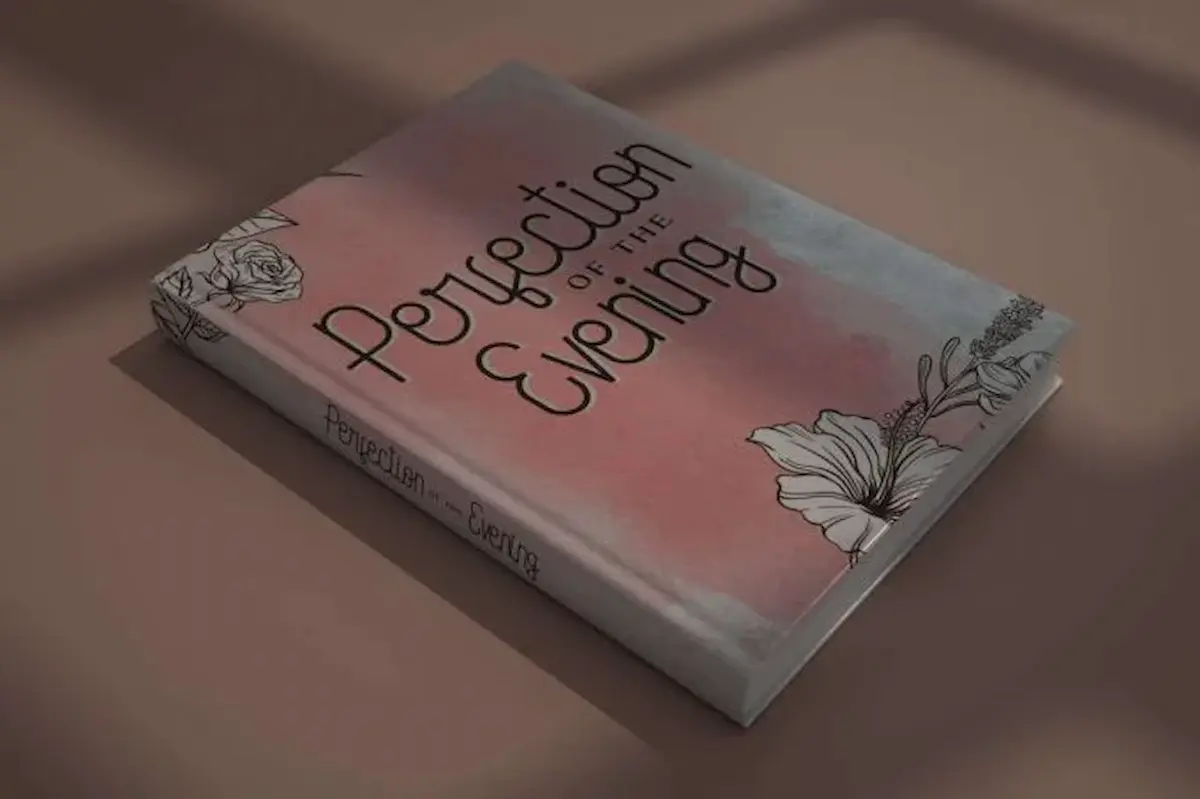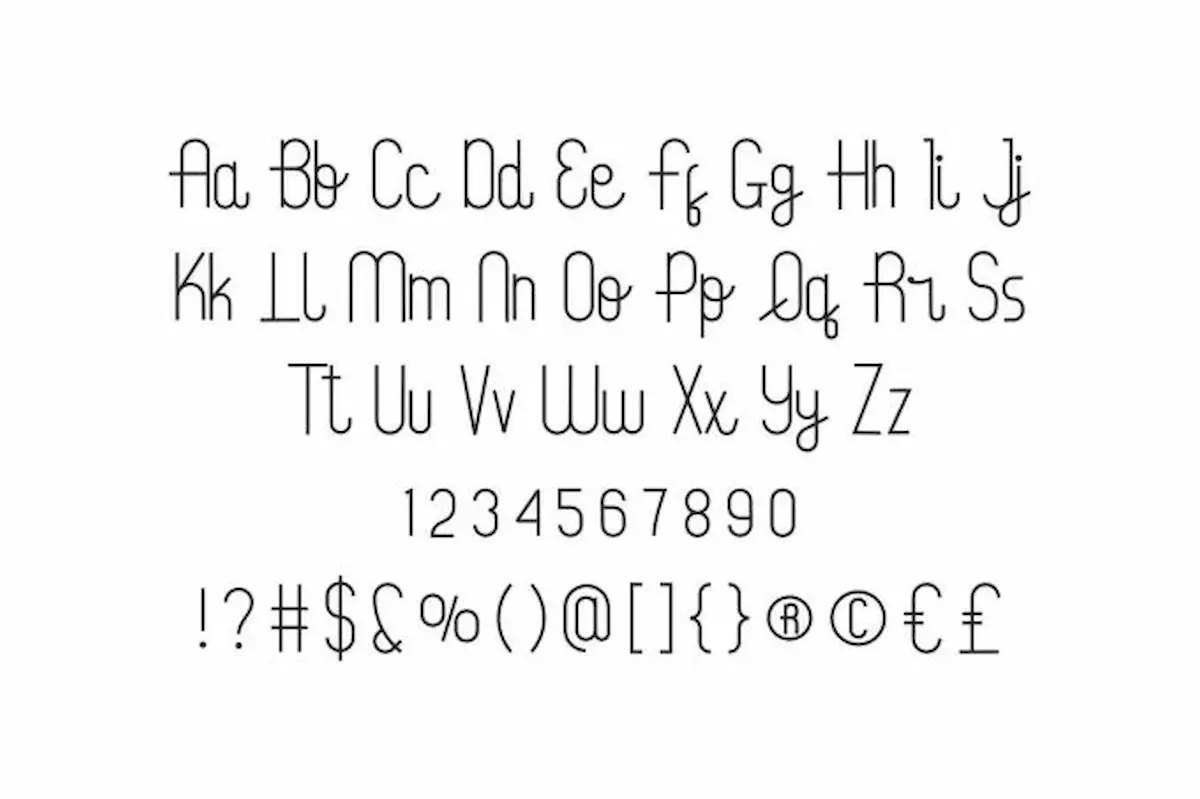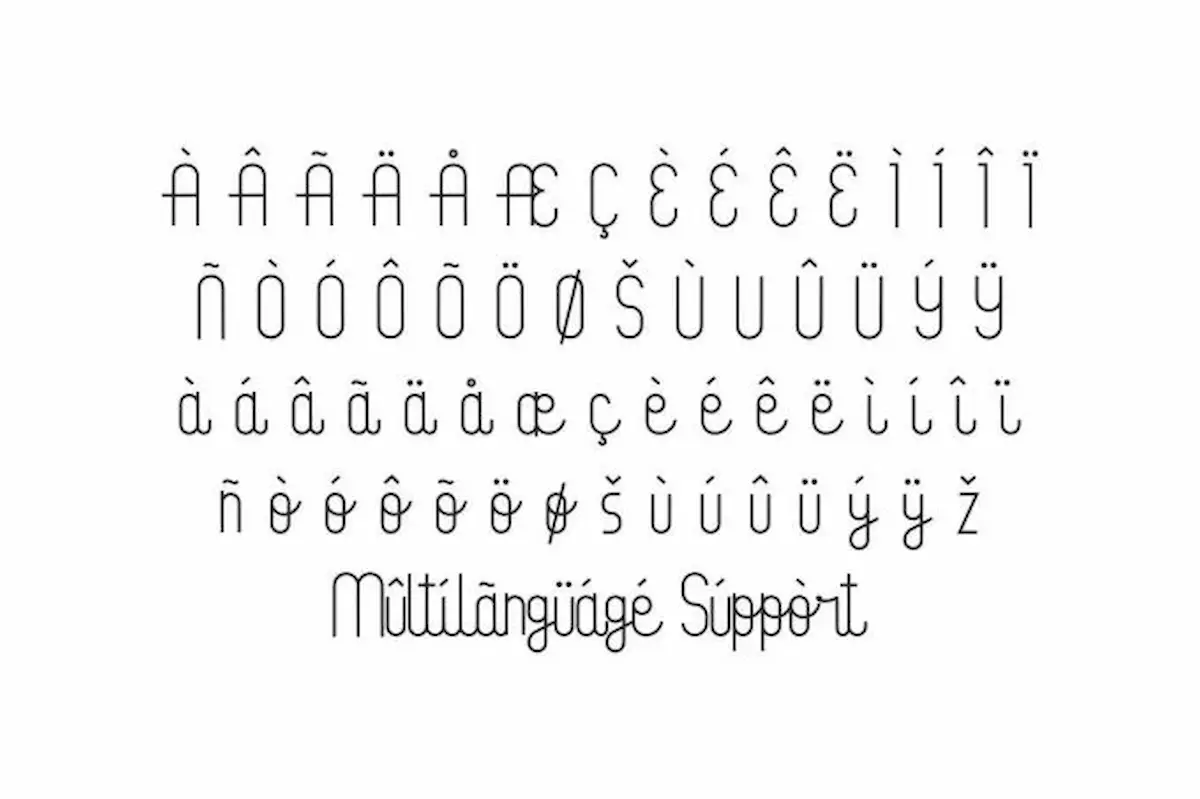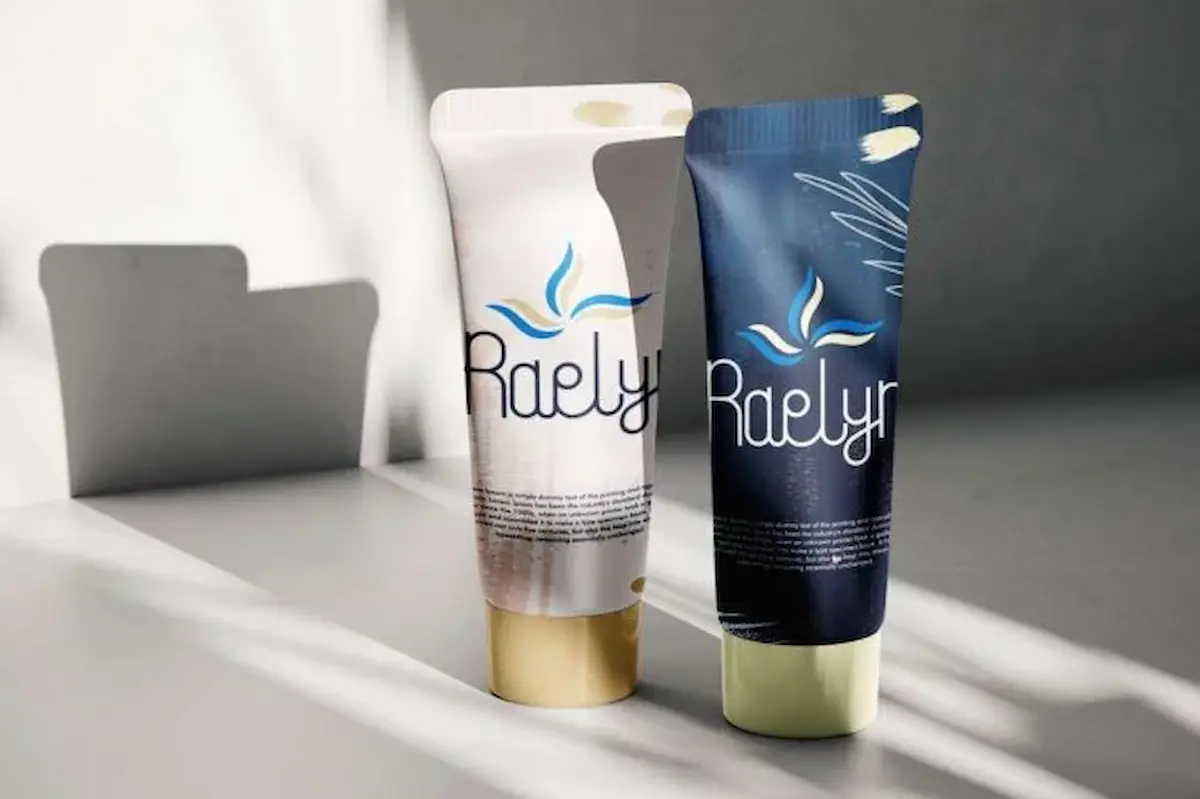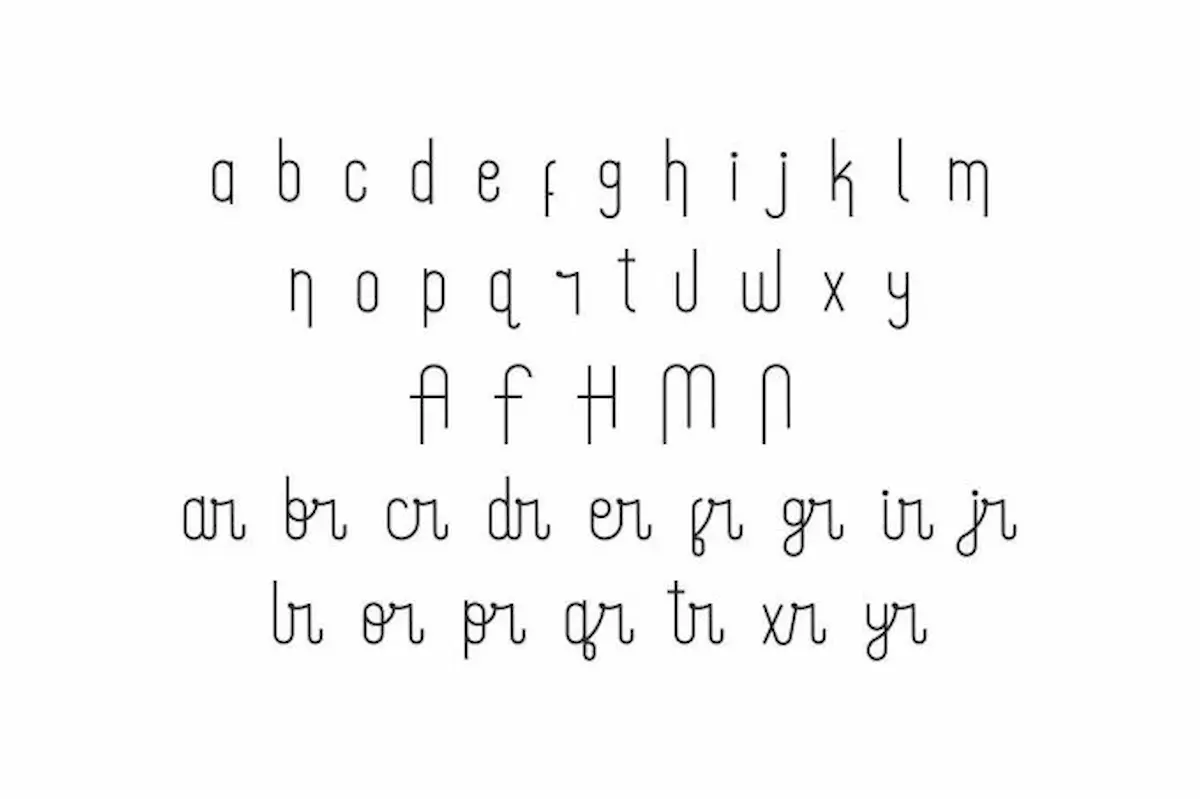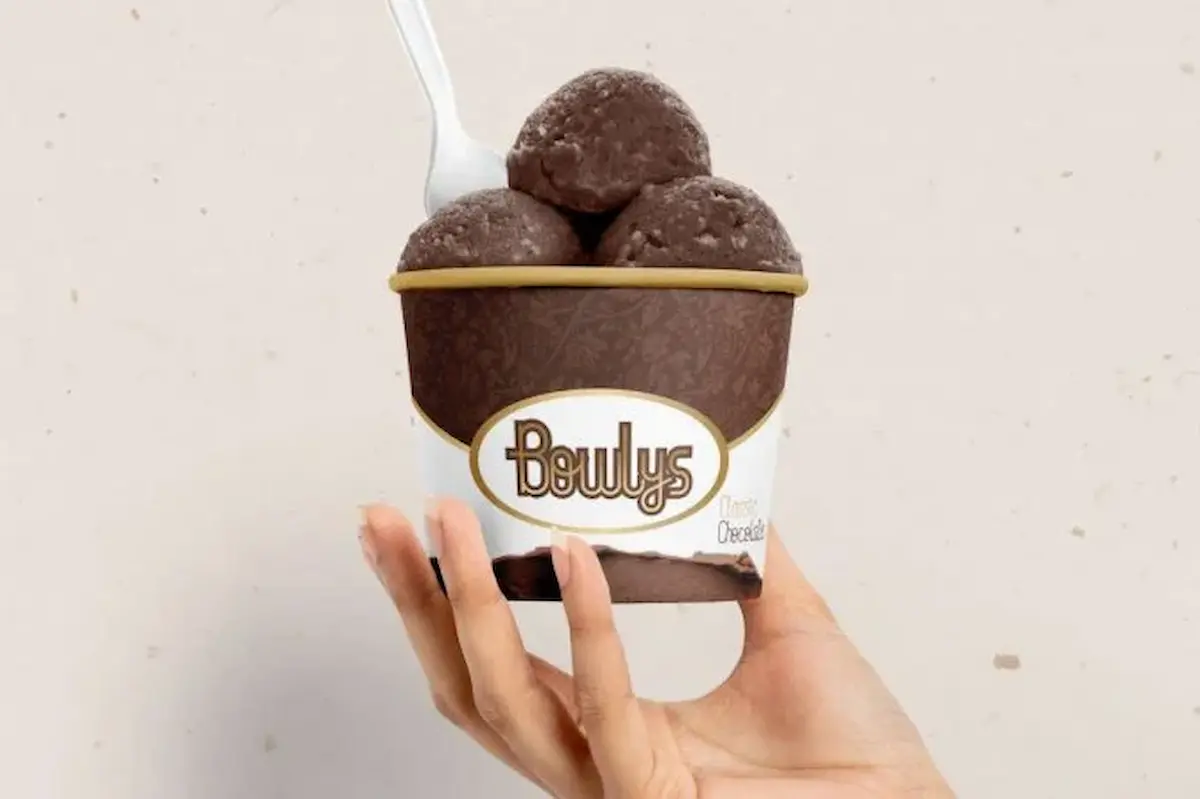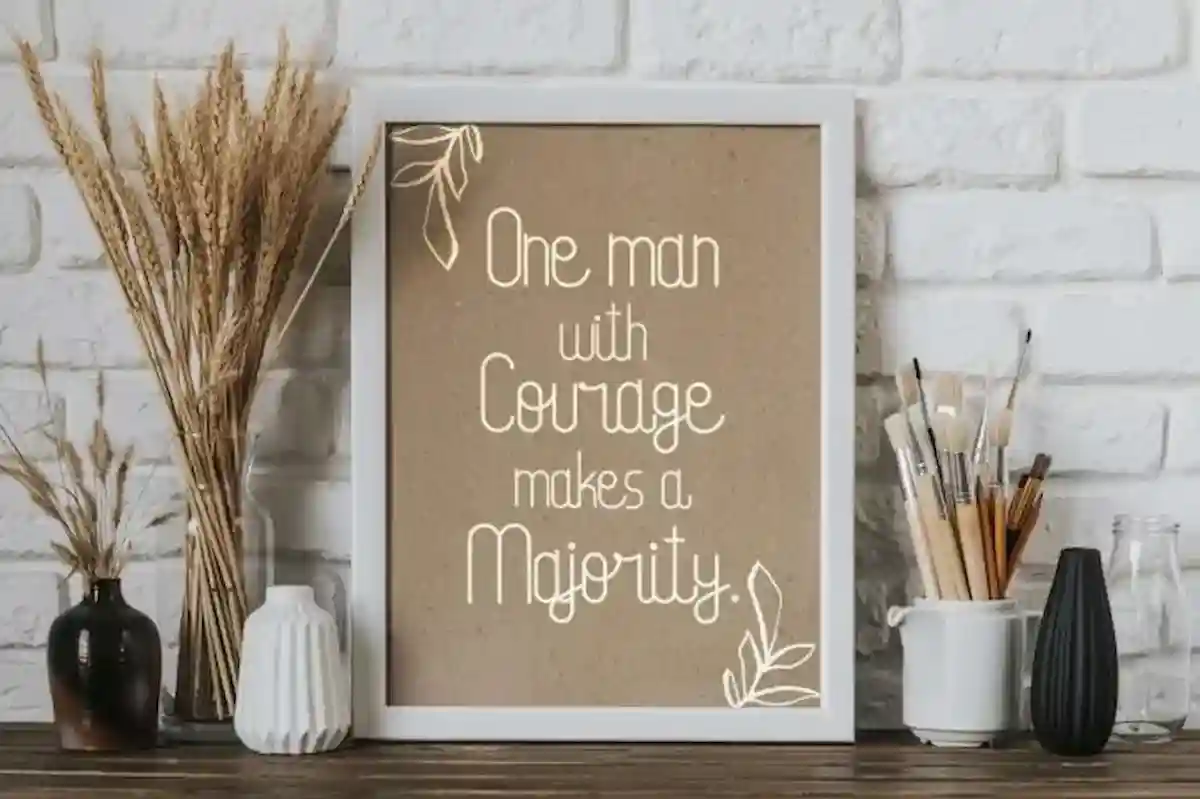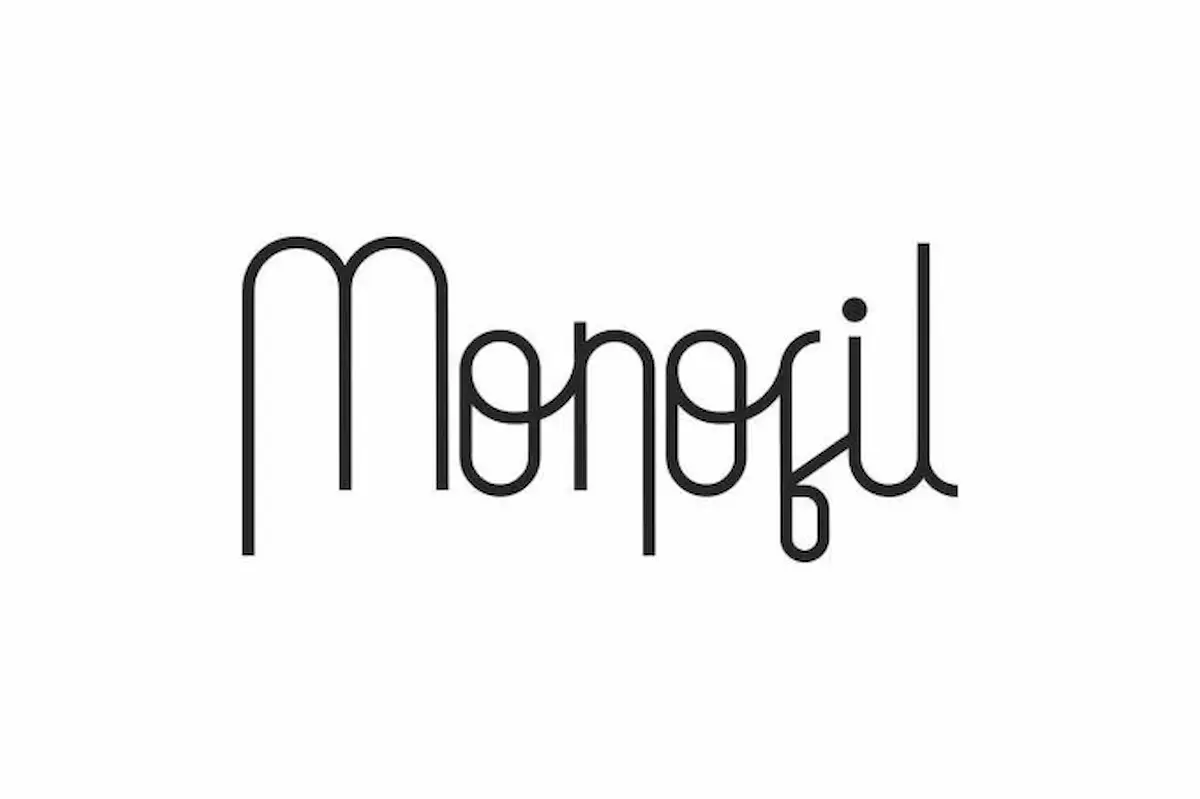
Monofil Font
Monofil Font is a simple monoline handwritten font with stylish style. This font can be used for anything from title, quote etc
Monofil Font is a monoline handwritten font inspired from casual cursive handwriting. Monoline is a handwritten font with the art of uncomplicated one line lettering. The uniqueness and modern of this font would be ideal for writing on book titles, product designs, quote art and anything else that might require a touch of handwriting!
Monofil Font would be great for, logo branding, products packaging, title and many more!! made by NihStudio in 2021 which will add a touch of fun to any of your projects